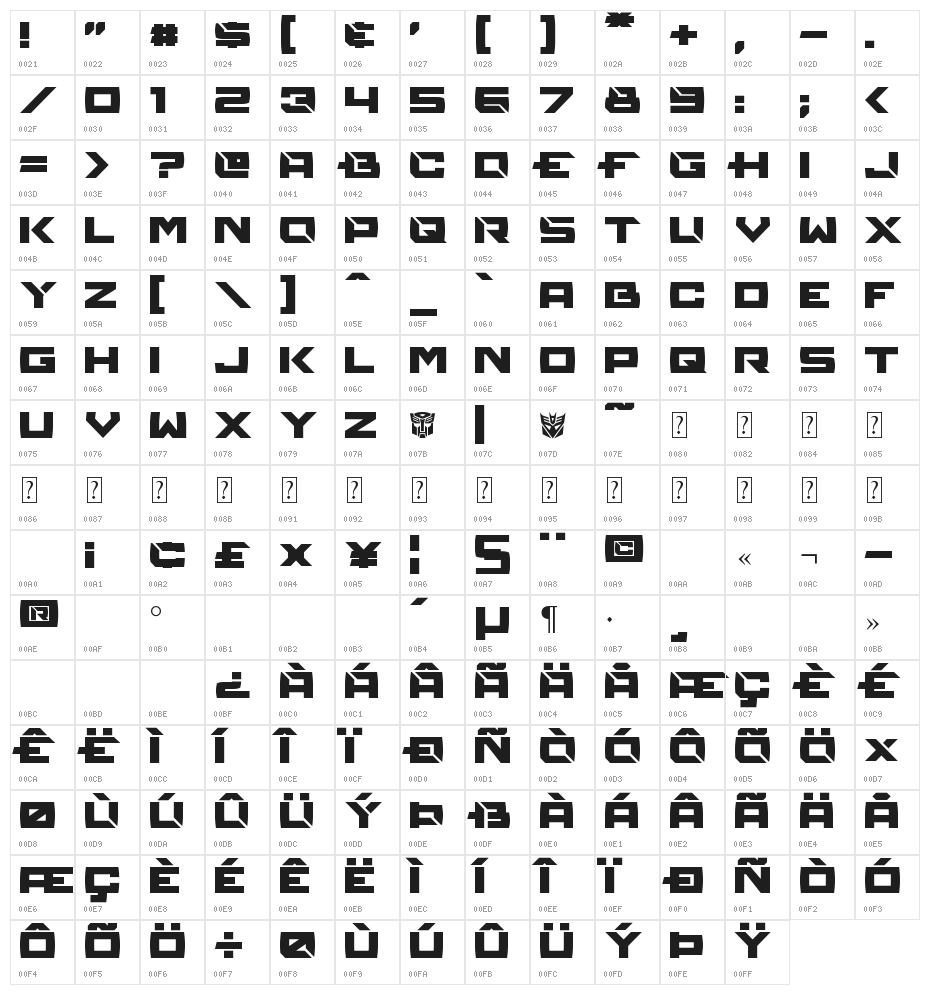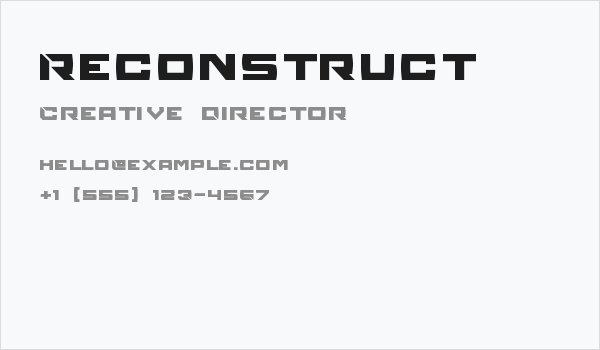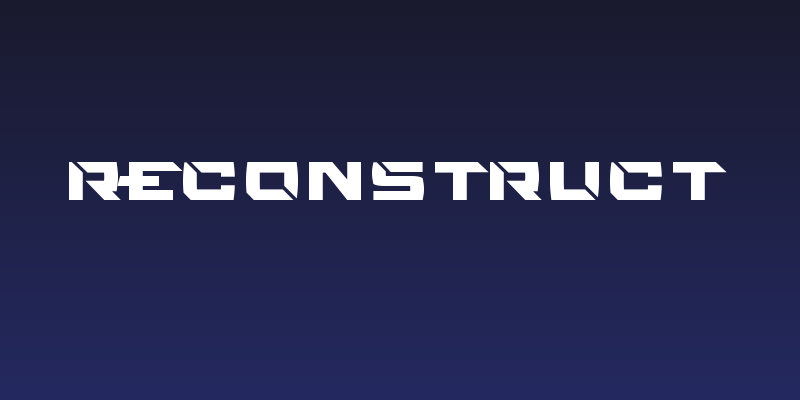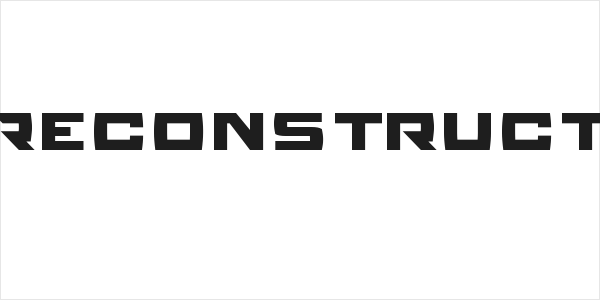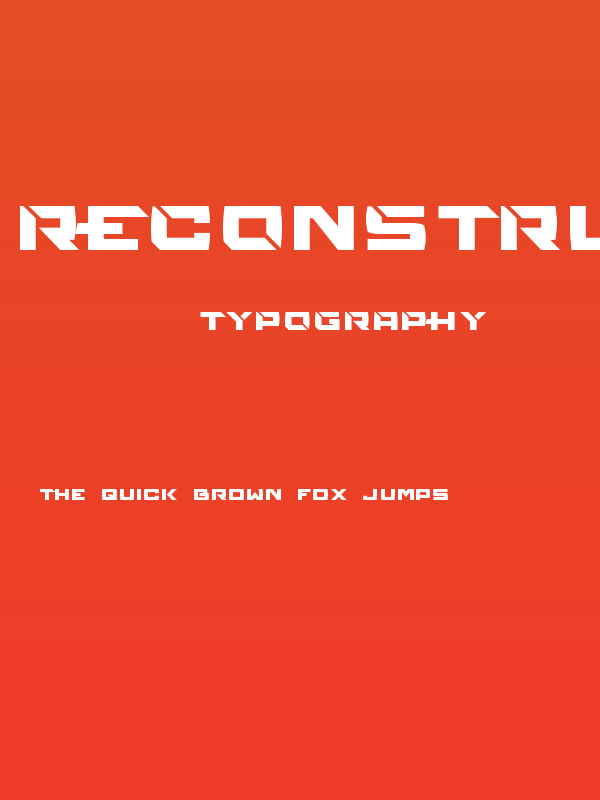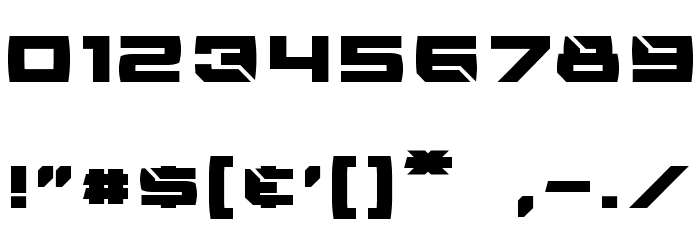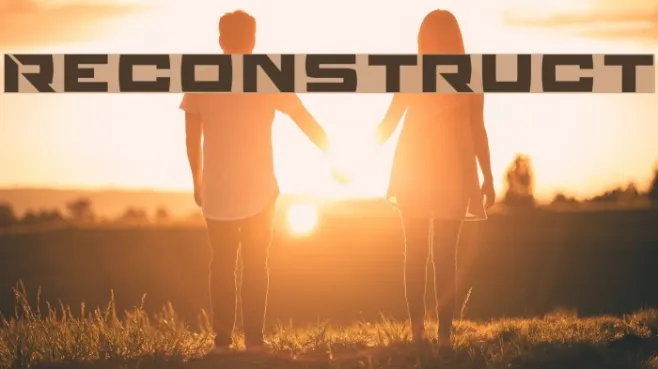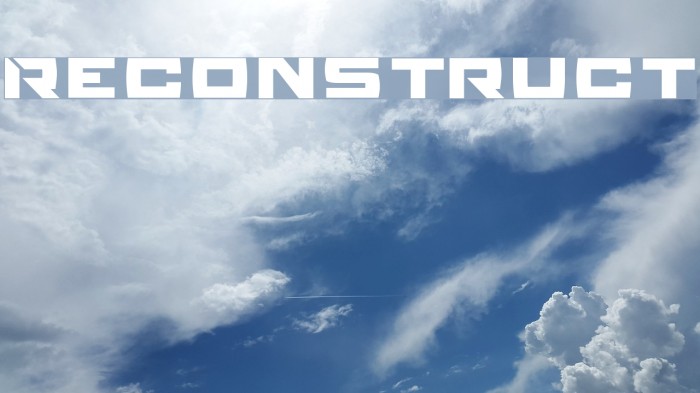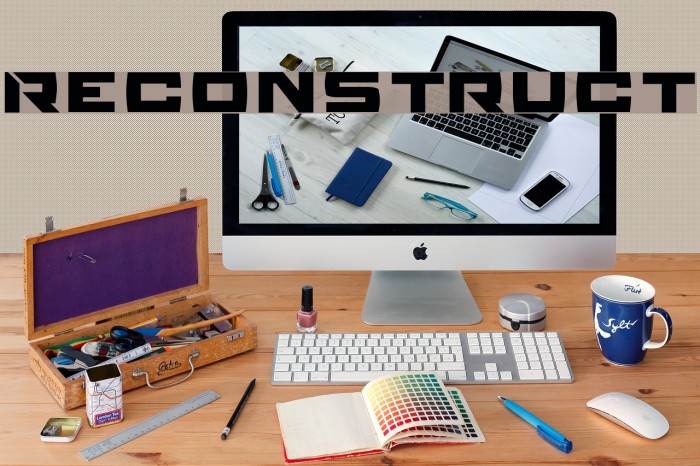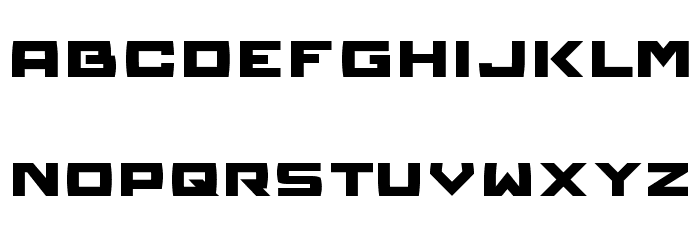
Reconstruct Font
Reconstruct Description
This font features a bold, geometric design with sharp angles and a futuristic aesthetic. The characters are constructed with a strong emphasis on angular cuts and a blocky appearance, giving it a distinct, modern look. The uppercase and lowercase letters maintain a consistent style, with the lowercase being slightly smaller but equally bold. Numbers and special characters follow the same design principles, ensuring uniformity across all glyphs. The font's unique style makes it stand out, suitable for projects that require a modern and edgy feel.
RECONSTRUCT UPPERCASE
RECONSTRUCT LOWERCASE
RECONSTRUCT OTHER CHARS
| Overall Style | Futuristic, Modern |
| Proposed Projects | Ideal for sci-fi themed designs, video game titles, tech branding, and modern posters. |